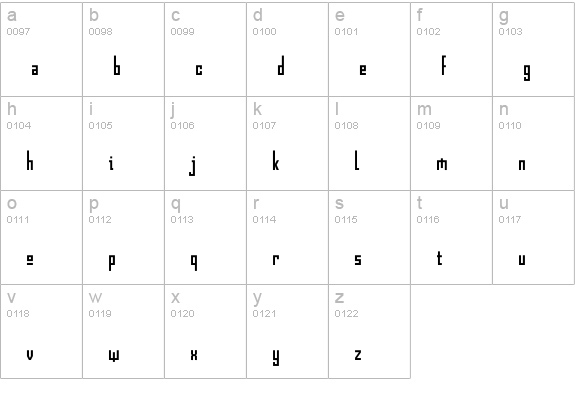
Gothik#107 Font Details
Introducing Gothik#107 font, a captivating and elegant typeface that exudes a sense of mystery and sophistication. This unique font combines modern aesthetics with a touch of gothic flair, making it perfect for a wide range of design projects. Its sharp lines and intricate details add a sense of drama and intensity to any text. What sets Gothik#107 font apart is not only its striking appearance but also its versatility. Whether you're working on a poster, logo, website, or any other design project, this font will bring a touch of edginess and style to your work. Best of all, Gothik#107 font is completely free to download at FontsMarket.com. So go ahead and enhance your designs with this stunning font today!